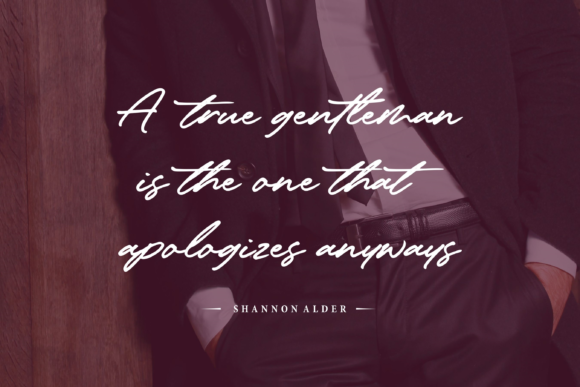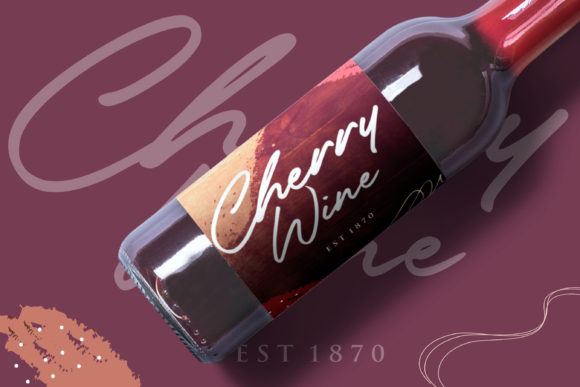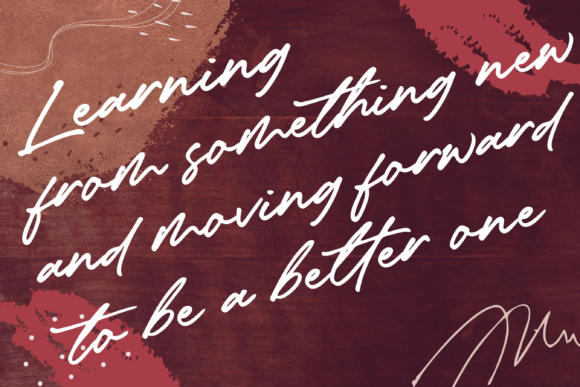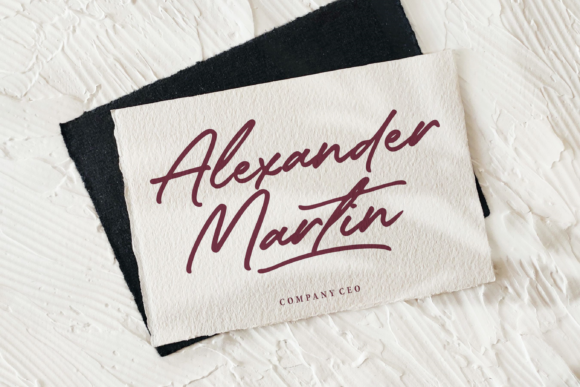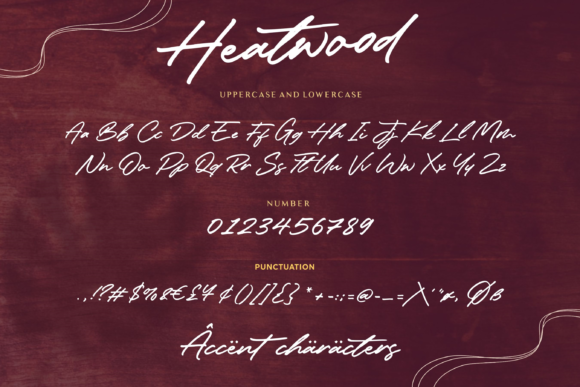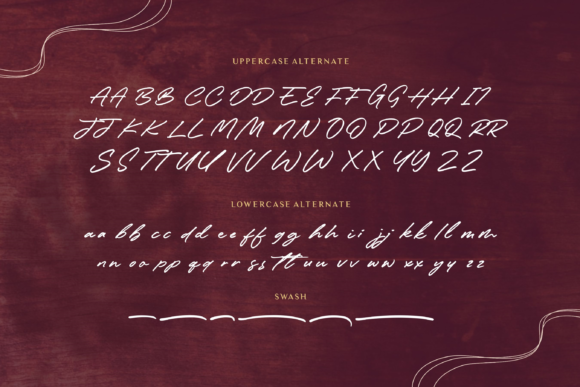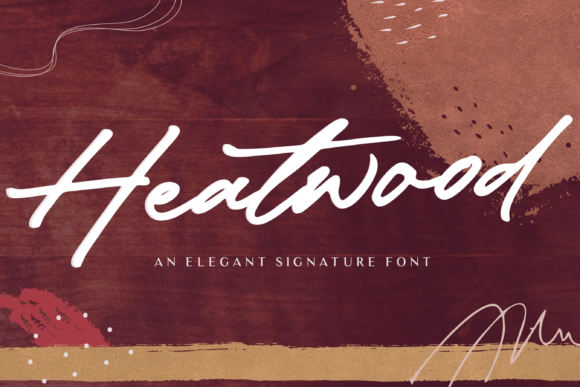
Introducing Heatwood Font: The Ultimate Tool for Creative Expression
Are you a designer, crafter, or DIY enthusiast looking for a font that can elevate your creative projects? Look no further than Heatwood Font, a cute signature font that can turn any idea into a true piece of art. In this article, we’ll explore the features and benefits of Heatwood Font, and how it can be used to take your Instagram feed, DIY projects, and calligraphy scripts to the next level.
What is Heatwood Font?
Heatwood Font is a unique and charming signature font that is perfect for anyone looking to add a personal touch to their creative projects. With its playful and cursive design, Heatwood Font is ideal for a wide range of applications, from social media graphics and Instagram posts to DIY projects and calligraphy scripts.
Key Features of Heatwood Font
- Cute and Playful Design: Heatwood Font features a delightful and whimsical design that is sure to capture the attention of your audience.
- Signature Style: This font is designed to mimic the look and feel of a signature, making it perfect for adding a personal touch to your creative projects.
- Cursive and Connected: Heatwood Font is a cursive and connected font, which means that it flows smoothly and elegantly, making it perfect for creating beautiful calligraphy scripts.
- Easy to Read: Despite its playful design, Heatwood Font is easy to read, making it perfect for use in a wide range of applications, from social media graphics to DIY projects.
Uses for Heatwood Font
Heatwood Font is a versatile font that can be used in a wide range of creative projects, including:
- Instagram Graphics: Add a personal touch to your Instagram feed with Heatwood Font. Use it to create beautiful graphics, quotes, and stories that will engage your audience.
- DIY Projects: Heatwood Font is perfect for DIY enthusiasts who love to create handmade cards, gift tags, and other paper crafts.
- Calligraphy Scripts: With its cursive and connected design, Heatwood Font is ideal for creating beautiful calligraphy scripts for special occasions, such as weddings, birthdays, and holidays.
- Branding and Marketing: Heatwood Font can also be used in branding and marketing materials, such as logos, business cards, and brochures, to add a personal and creative touch.
Benefits of Using Heatwood Font
So why choose Heatwood Font for your creative projects? Here are just a few benefits of using this amazing font:
- Adds a Personal Touch: Heatwood Font allows you to add a personal touch to your creative projects, making them stand out from the crowd.
- Increases Engagement: The playful and whimsical design of Heatwood Font is sure to capture the attention of your audience, increasing engagement and interaction.
- Versatile: Heatwood Font can be used in a wide range of creative projects, from social media graphics to DIY projects and calligraphy scripts.